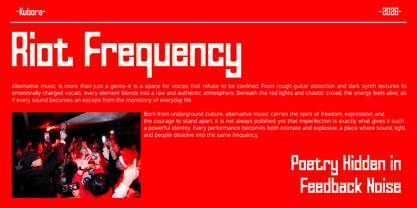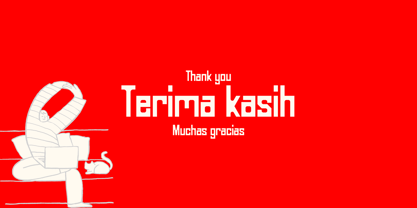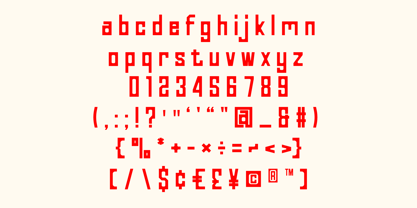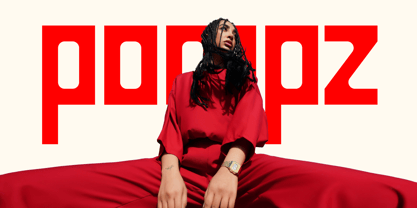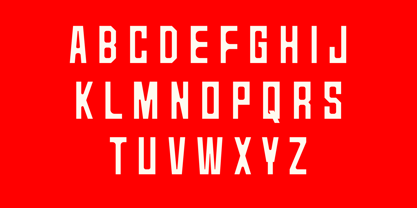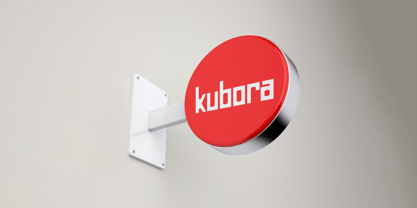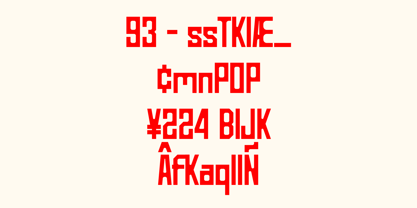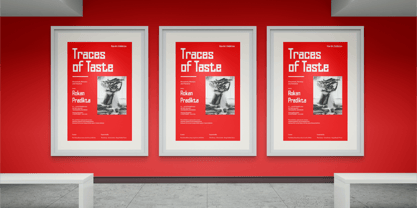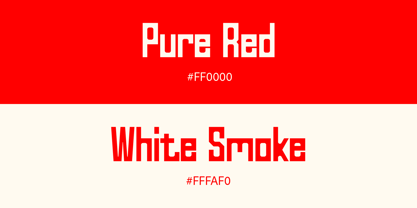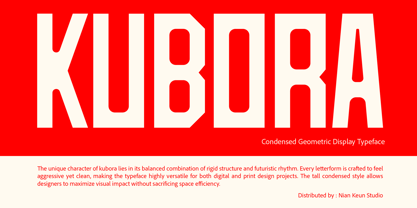
Kubora
by Nian Keun Studio
The Kubora Font Family was designed by Mugi Raharjo and published by Nian Keun Studio. Kubora contains 1 styles. More about this family
KUBORA is a condensed geometric display typeface designed to deliver a bold, powerful, and futuristic visual impact. Its tall proportions, clean construction, and strong angular details make it ideal for branding, headlines, posters, logos, packaging, sports graphics, and digital content.
Combining modern geometric aesthetics with an industrial attitude, KUBORA offers excellent space efficiency while maintaining a commanding presence. It performs exceptionally well at large sizes, making every message stand out with confidence and clarity.
Designers: Mugi Raharjo
Foundry: Nian Keun Studio